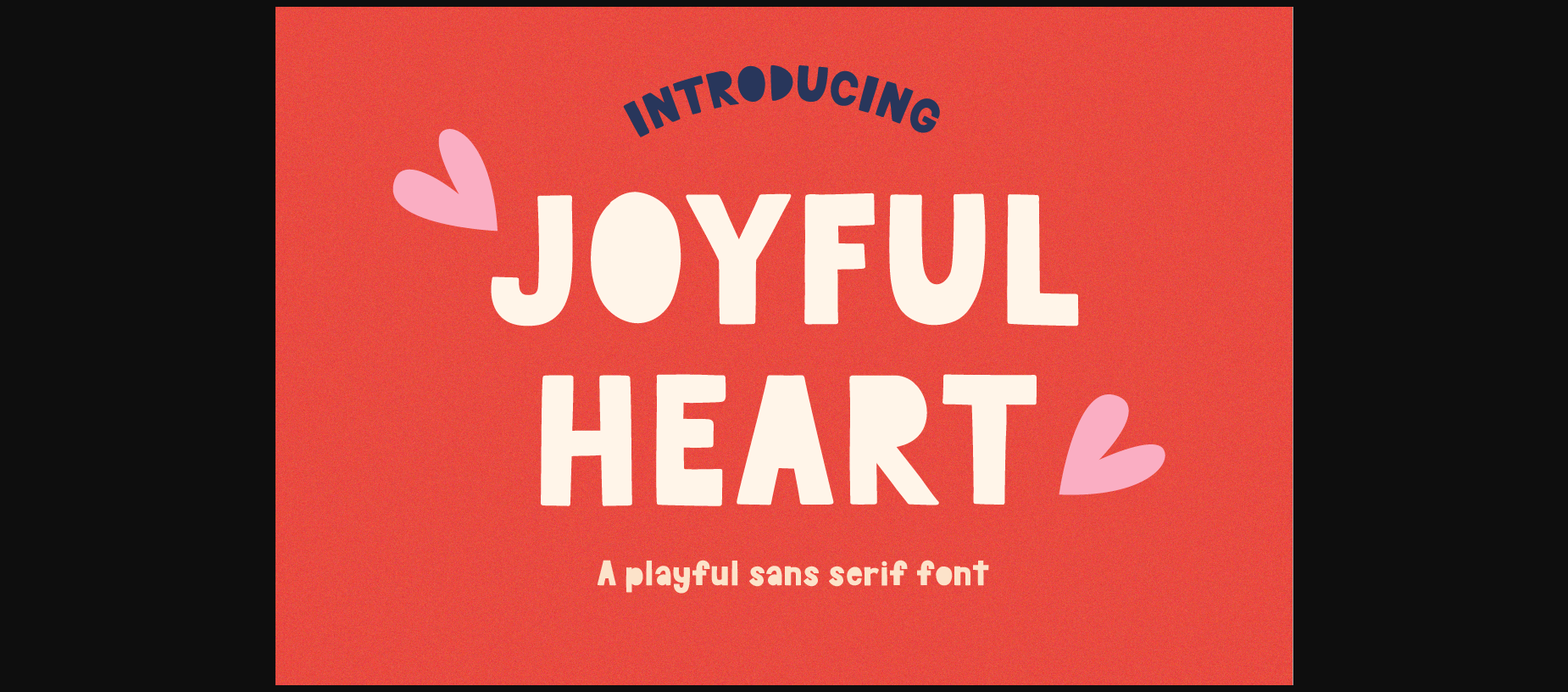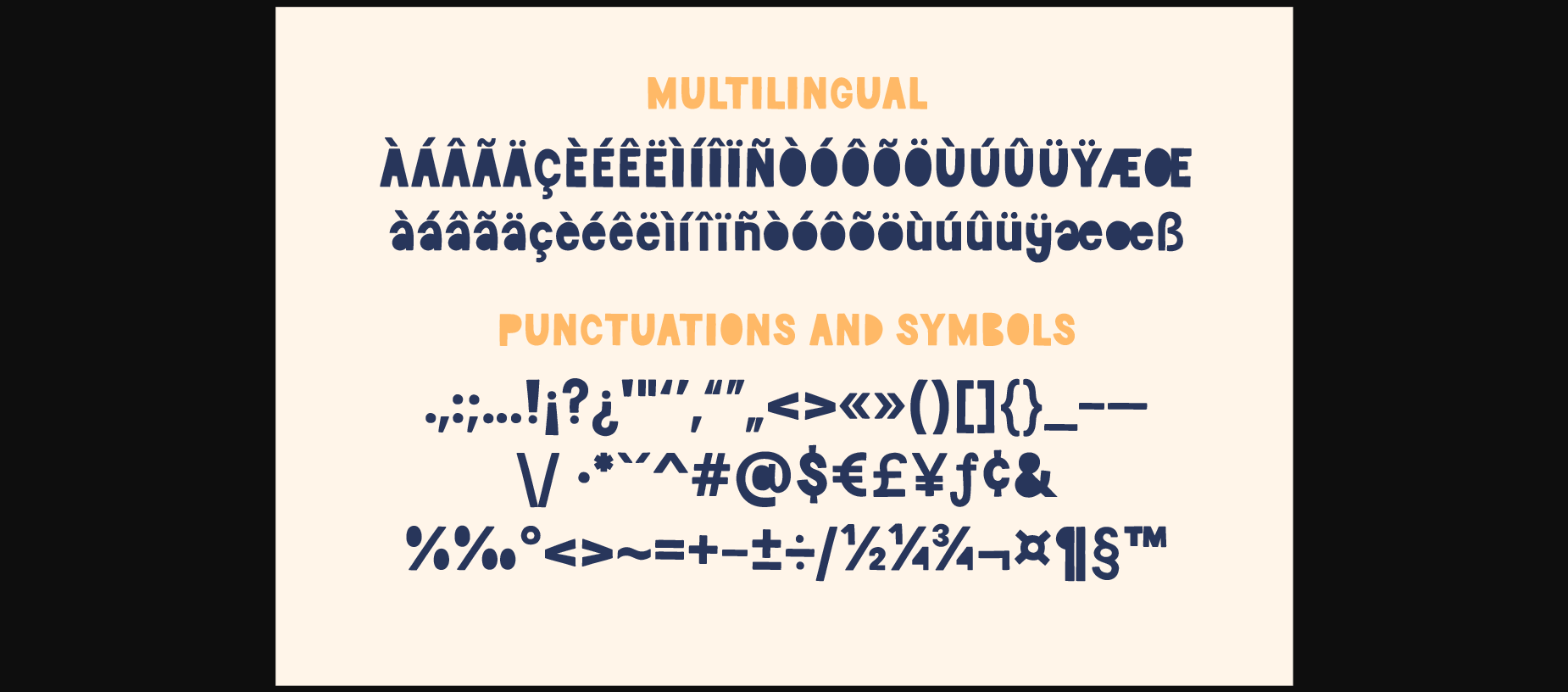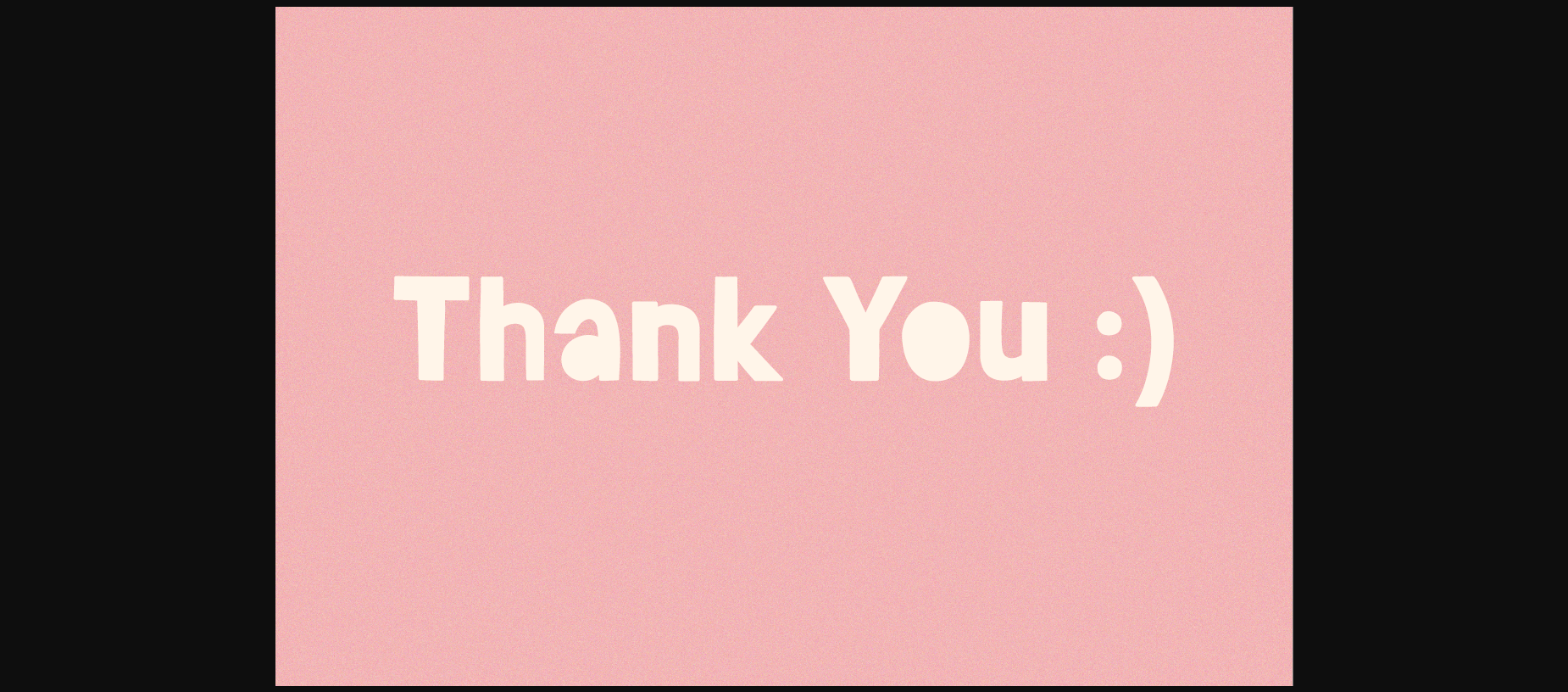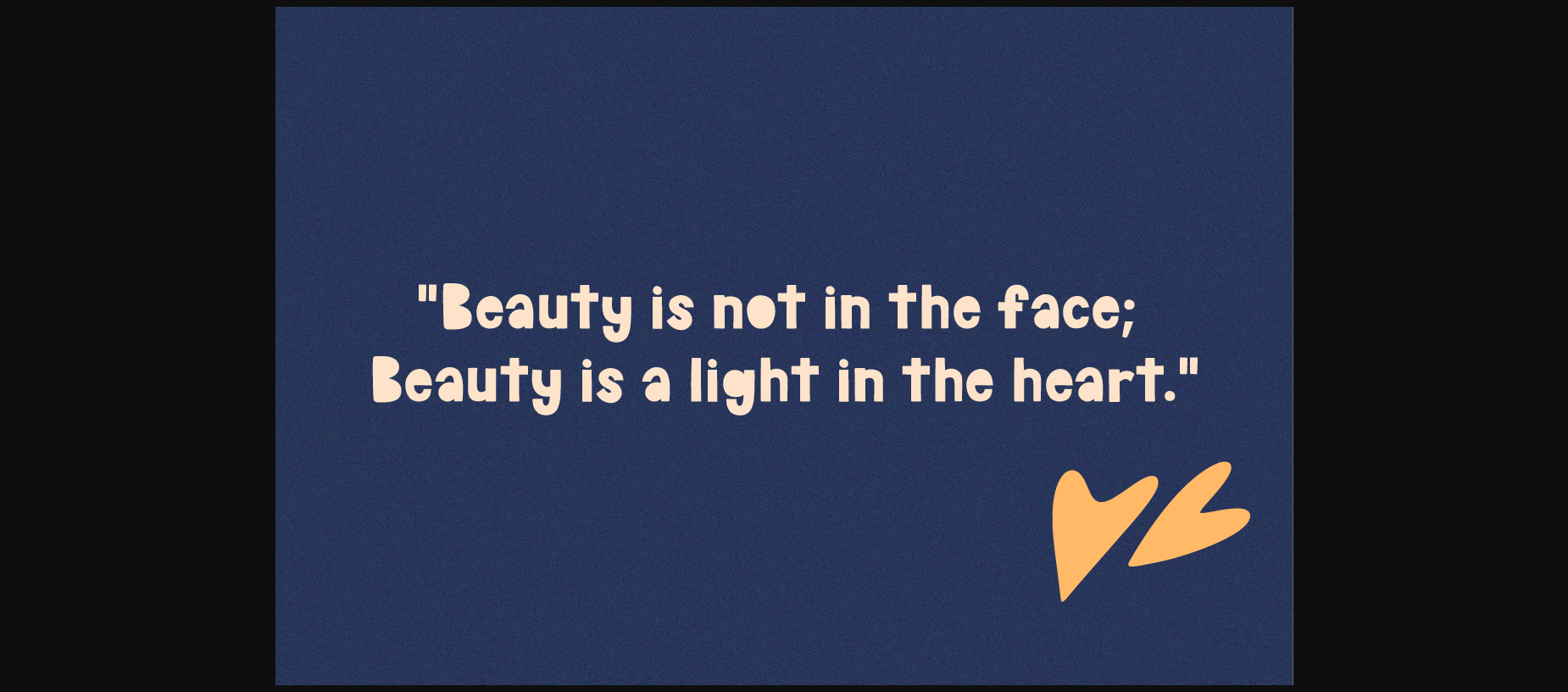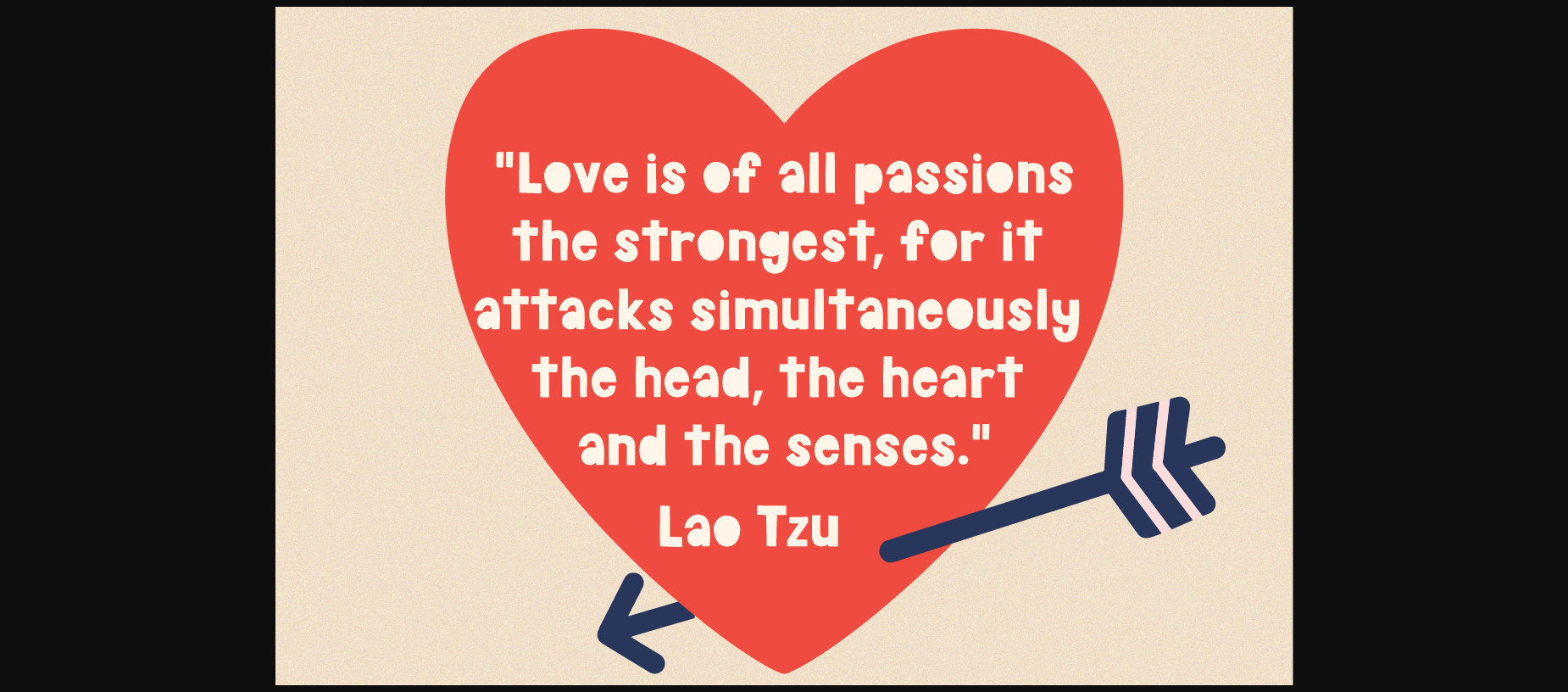
About Joyful Heart Font
JOYFUL HEART is a simple sans serif display font with a square style. Perfect for playful quotes, creating posters, logos, greeting cards, packaging, decorating the illustration and so much more!